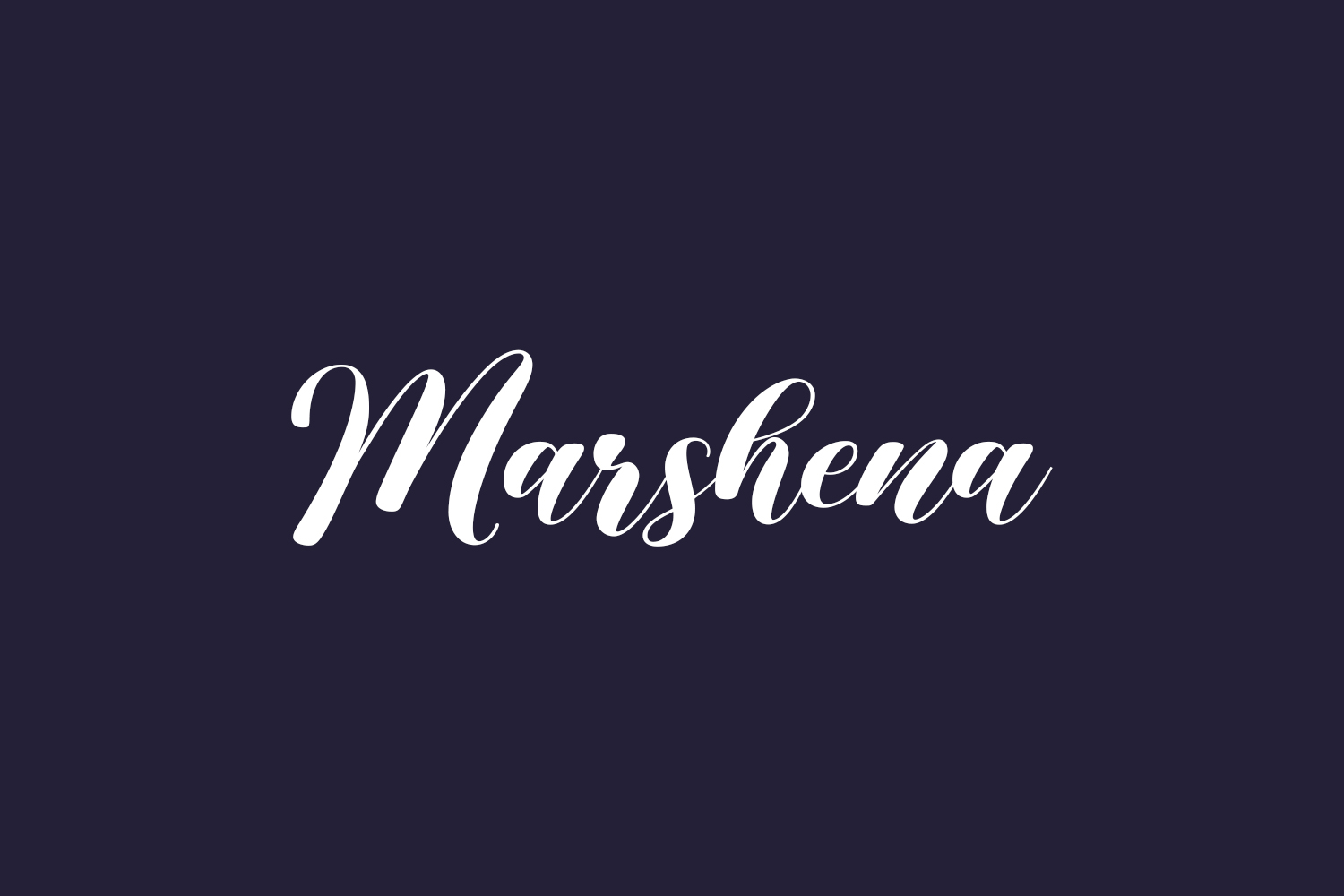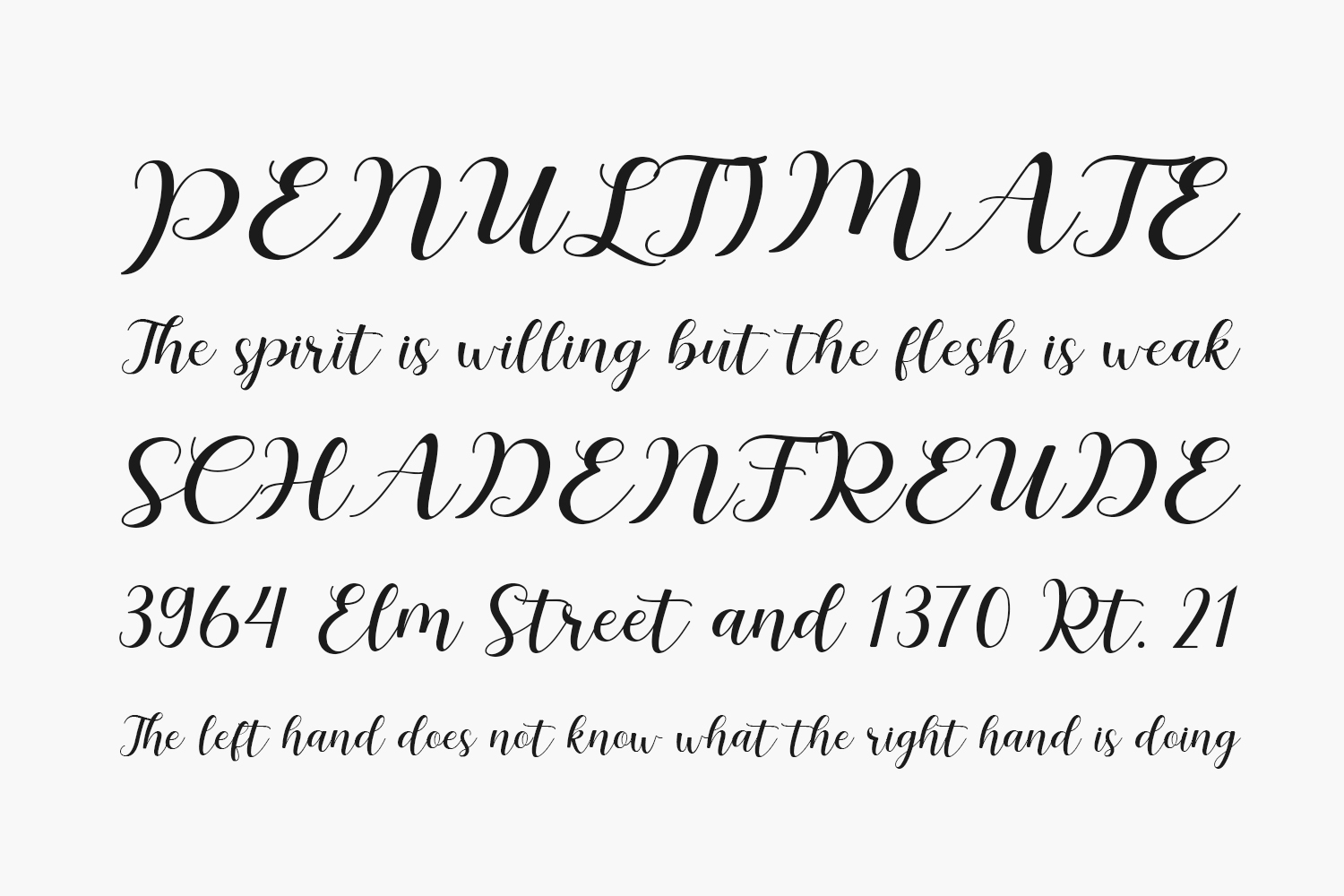
Marshena Free Font, a delightful and sophisticated script font, is perfect for bringing a touch of charm to your imaginative endeavors! Incorporate it into wedding invitations, birthday cards, expressions of gratitude, or any other creative project. Elevate your designs with the sweet elegance of Marshena. Download the font for free if you need it for personal use or purchase the full version for commercial use.